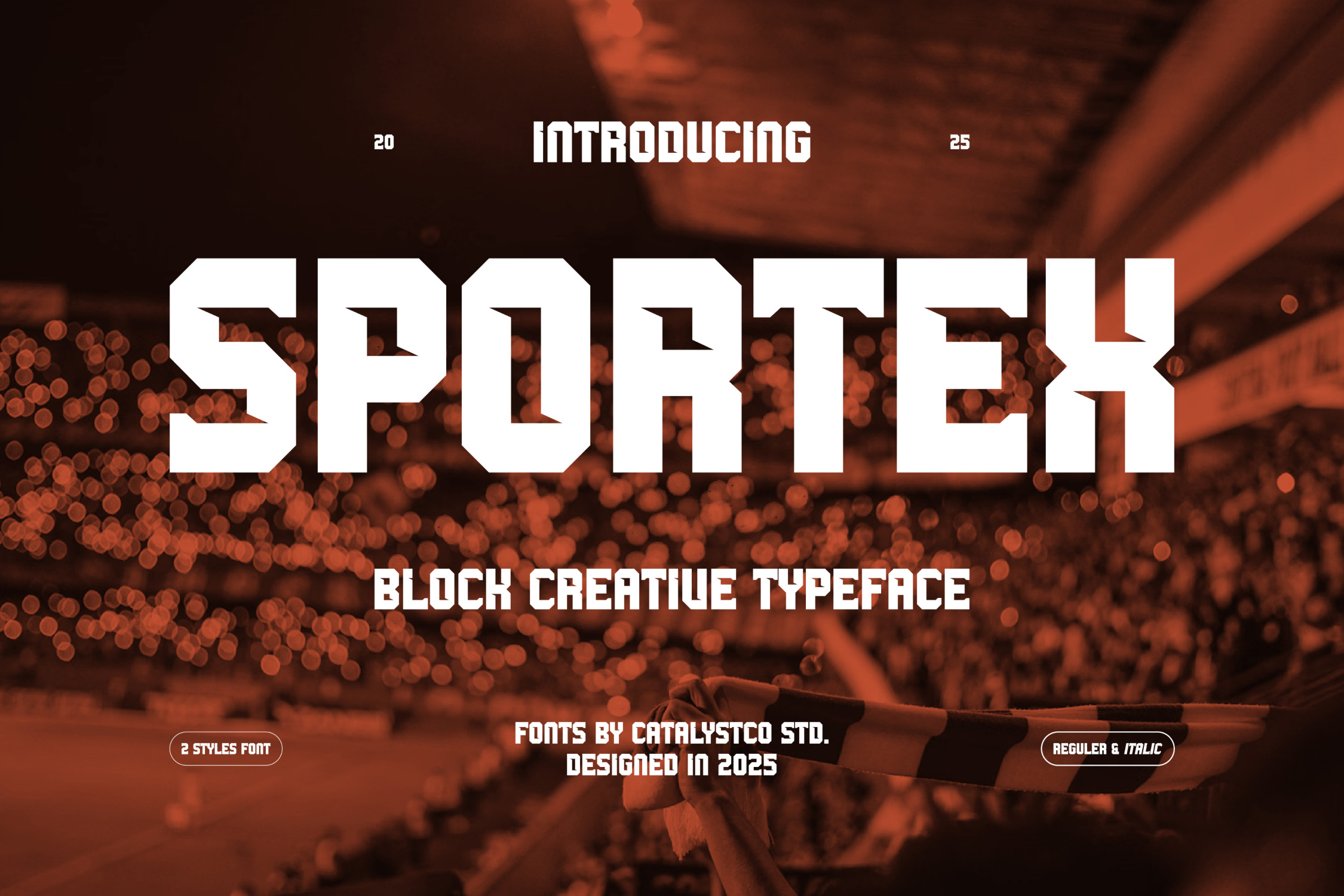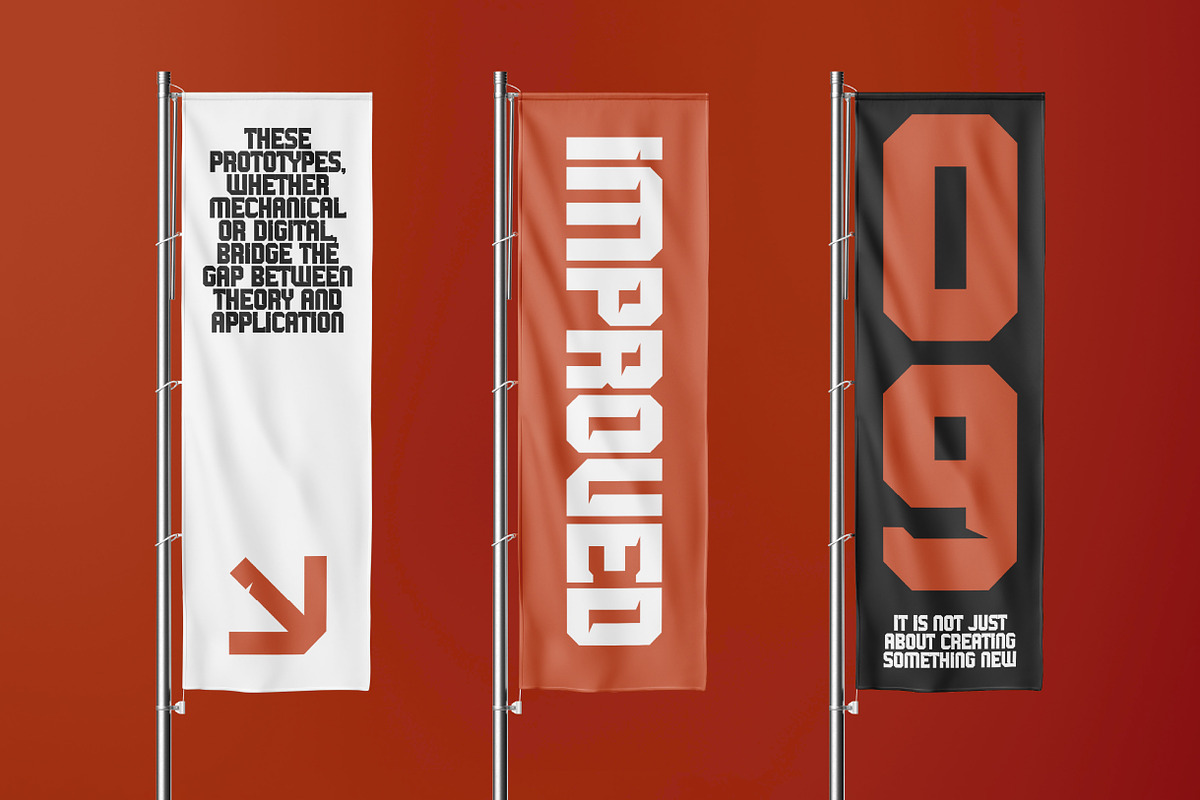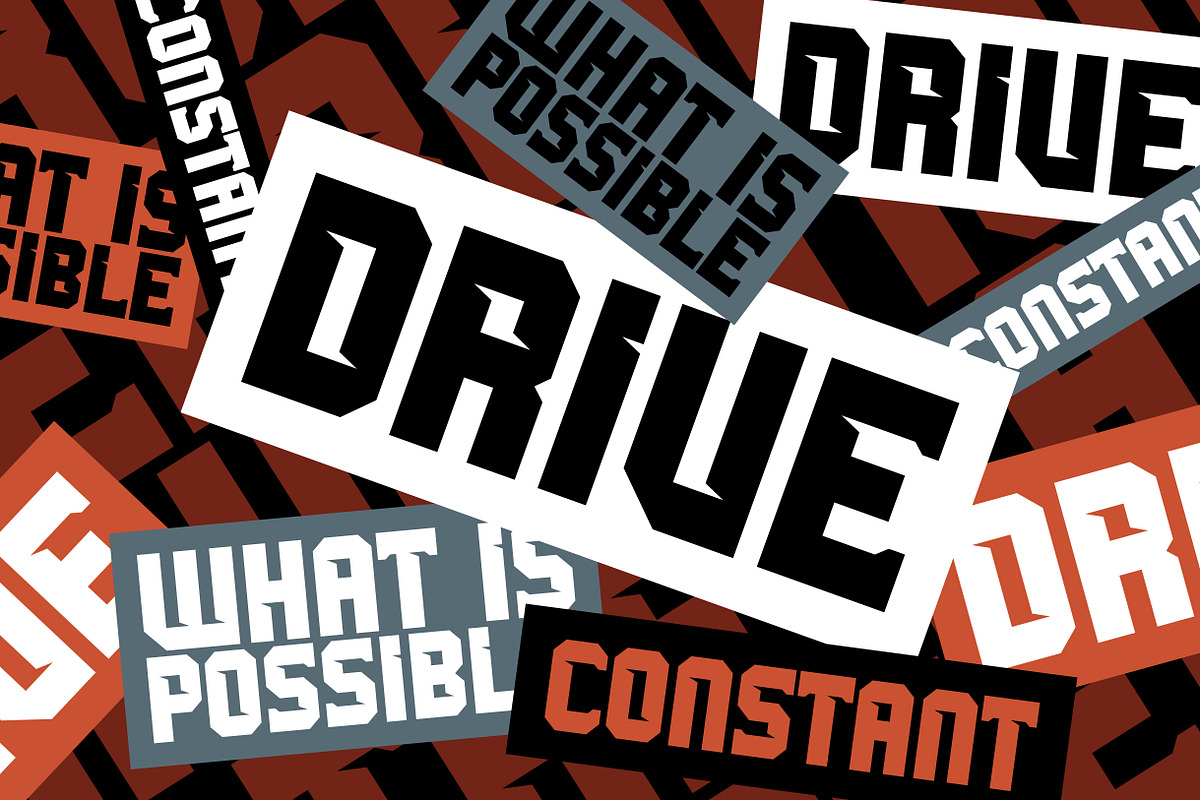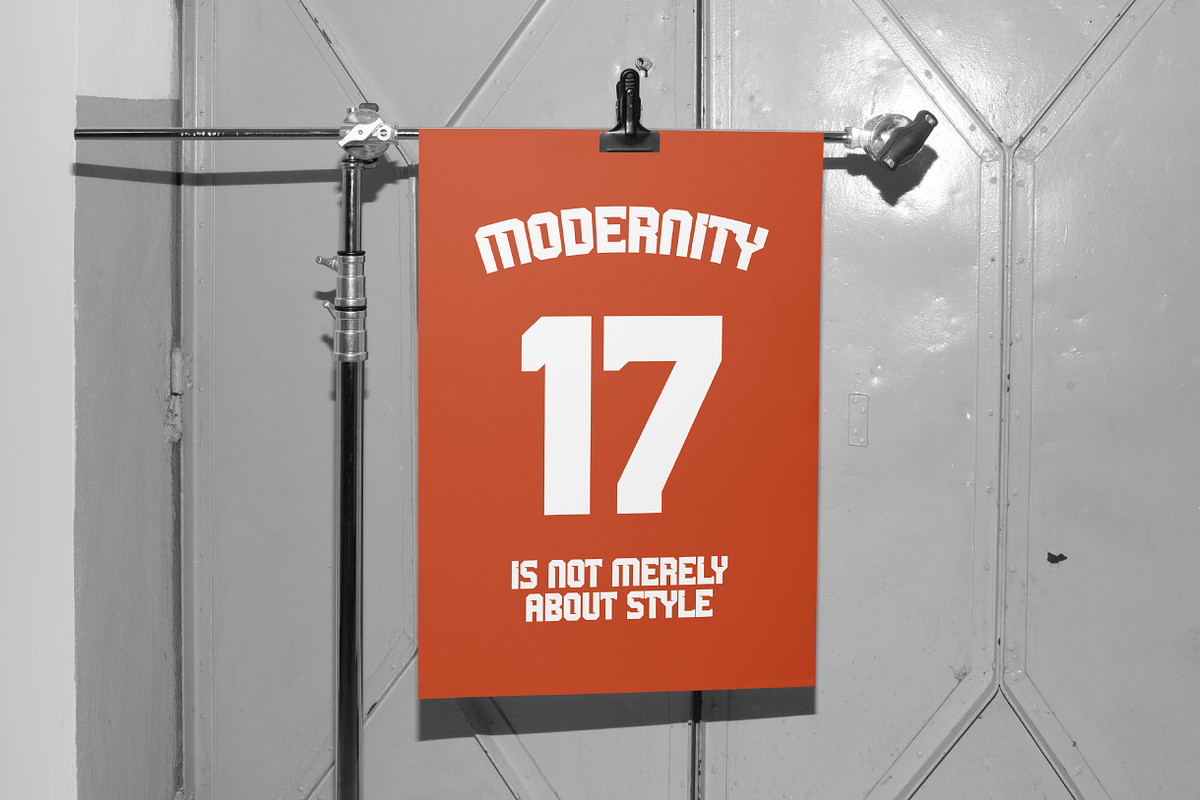
Sportex Block Creative Typeface Font
Sportex is a powerful block-style display typeface designed for maximum impact. Inspired by stadium energy and competitive spirit, this typeface features strong, angular letterforms and comes in two styles: Regular and Italic. Ideal for sports branding, team posters, merchandise, headlines, and more. The font includes uppercase characters, numbers, punctuation, and multilingual support.
Sportex is ideal for sports-related design needs, including team branding, event promotions, and athletic merchandise. Its blocky and bold construction makes it perfect for loud headlines, sportswear packaging, game day graphics, and social media visuals tied to energy, action, and motivation. Whether for football, esports, or fitness campaigns, this font delivers visual strength and competitive flair.
- Bold block lettering with strong geometric angles
- All-caps structure for powerful visual impact
- Two styles: Regular and Italic for versatility
- Sharply cut terminals for a sporty and aggressive tone
- Excellent legibility at various sizes for headlines or display use
- Sports branding and athletic event promotions
- Dynamic headlines in posters and banners
- Team merchandise, apparel, and jersey designs
- Esports logos and gaming content visuals
- Motivational graphics, fitness apps, and gym advertising
Amplify your message with bold energy Sportex power up your visual identity